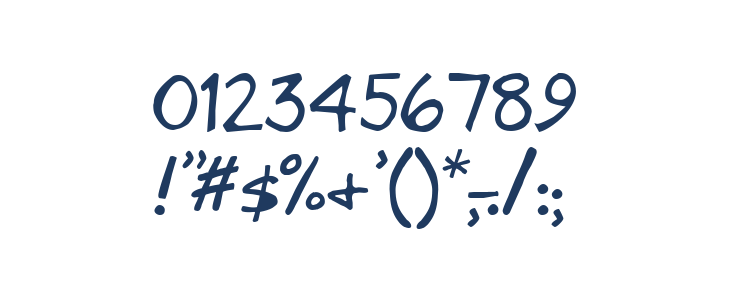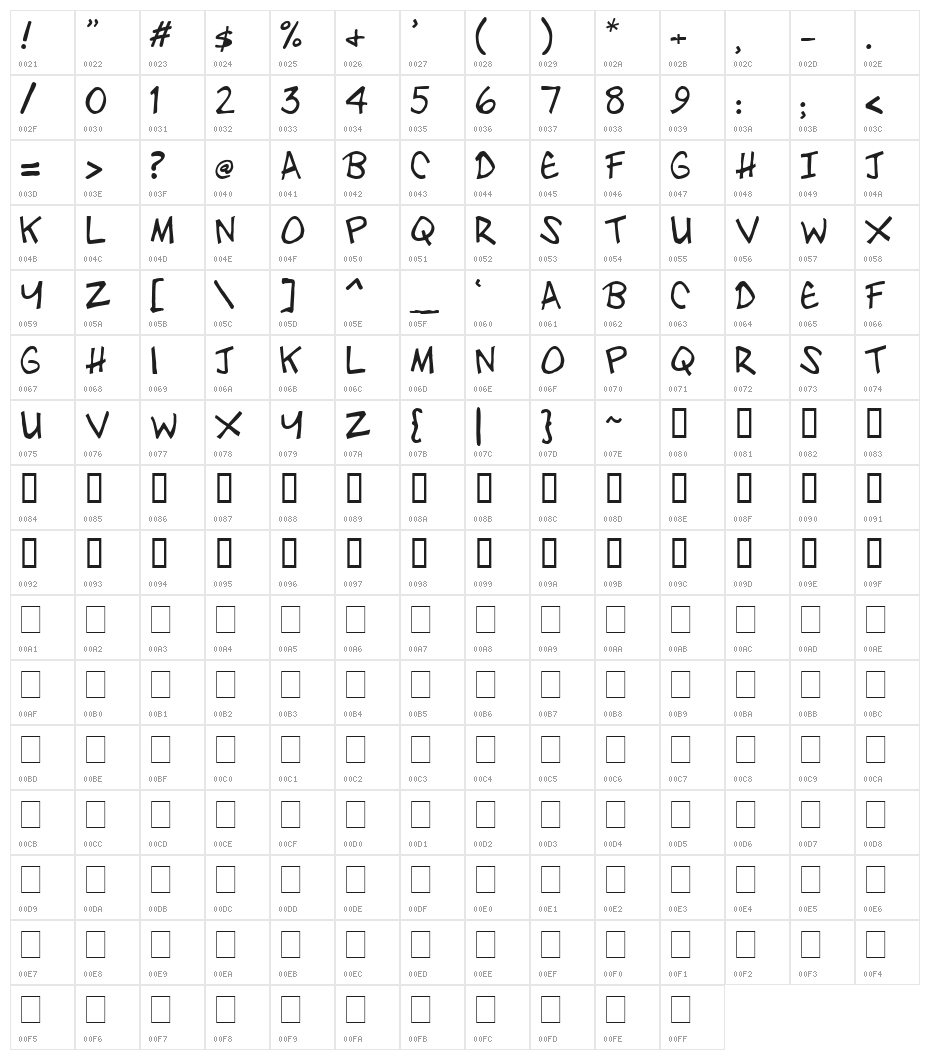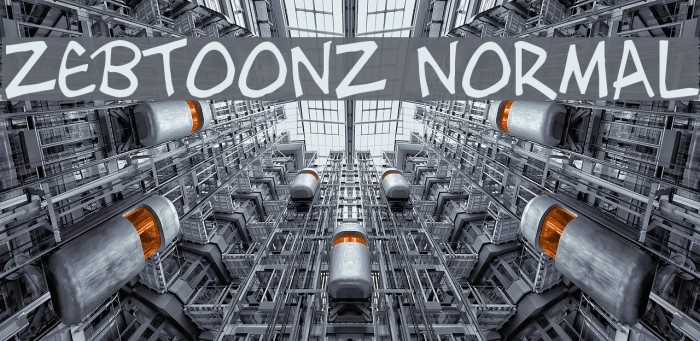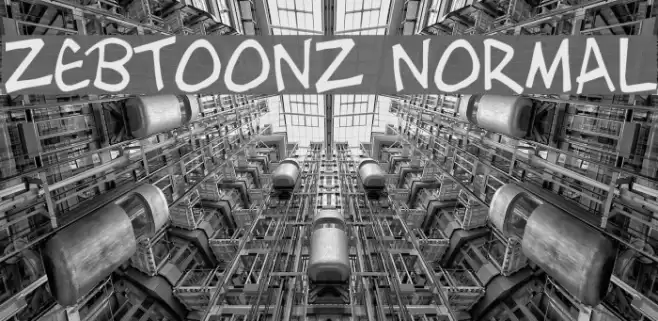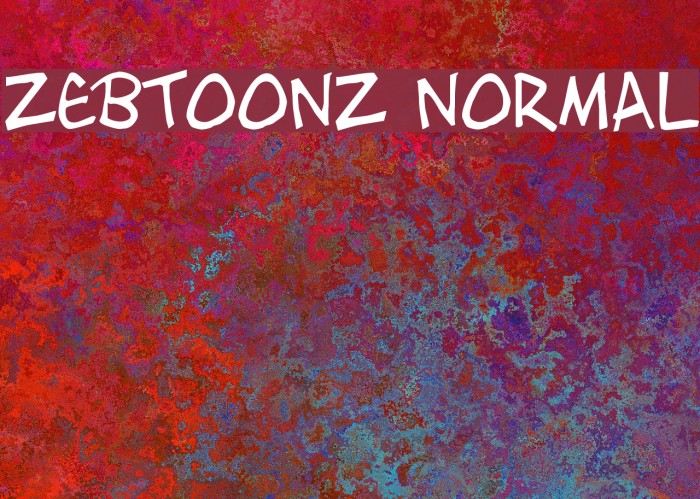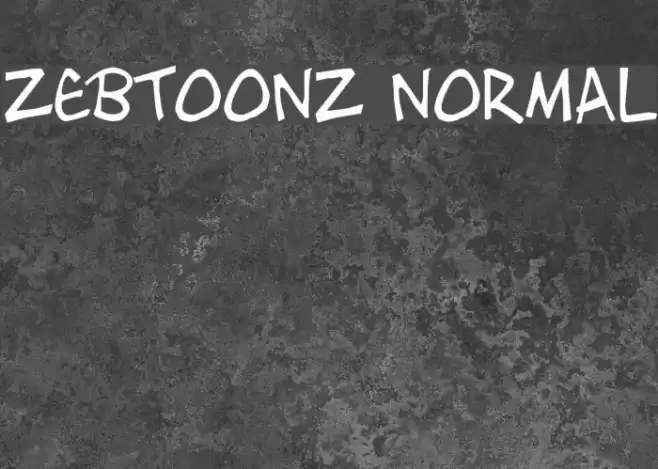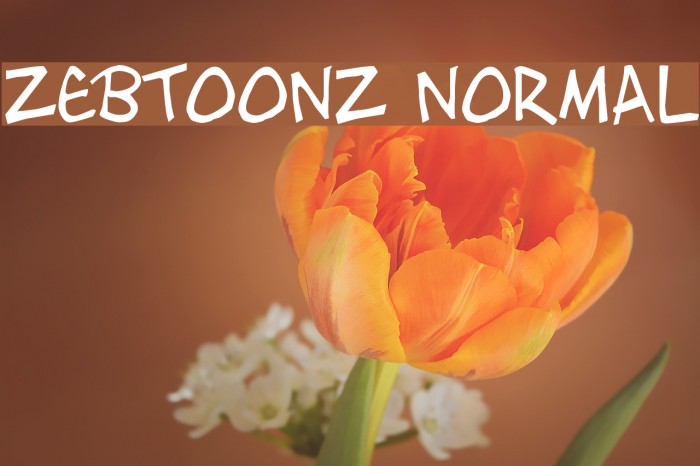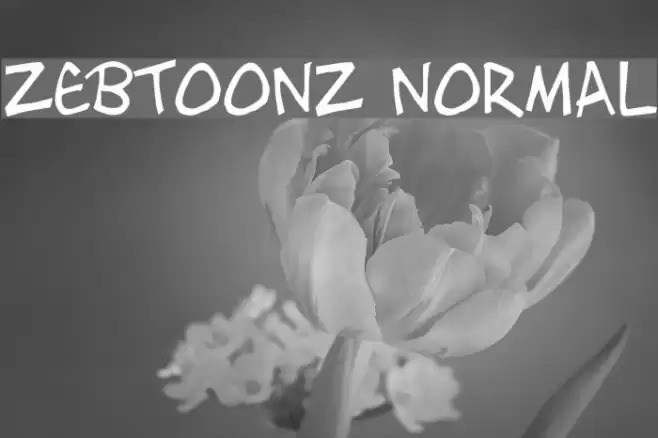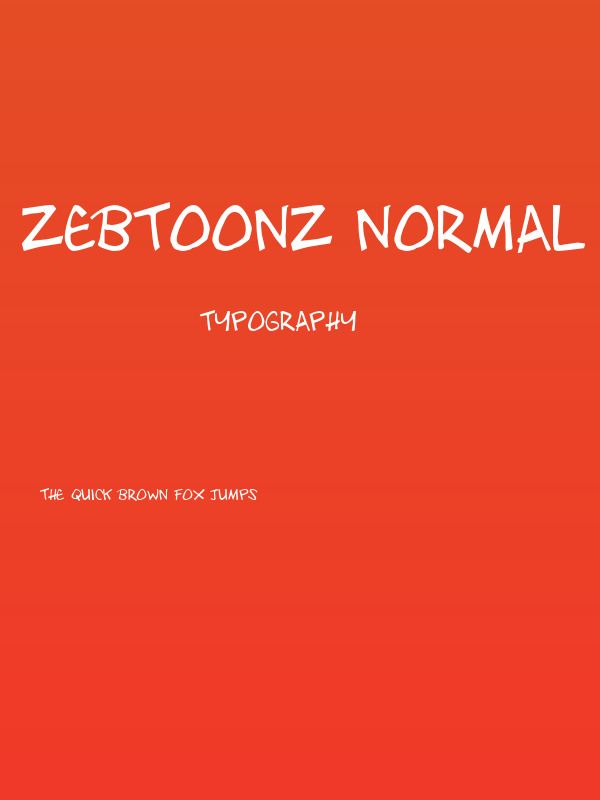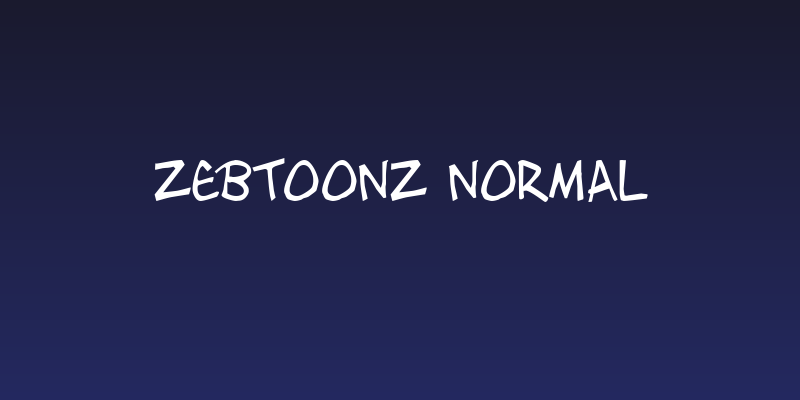
Zebtoonz Normal Font
Zebtoonz Normal Description
This playful and energetic font features a handwritten style with bold, dynamic strokes. The characters exhibit a casual, informal appearance, reminiscent of comic or cartoon lettering. The uppercase and lowercase letters maintain a consistent, lively rhythm, while the numbers and special characters complement the overall whimsical aesthetic. The font's design is characterized by its slightly irregular shapes and varying stroke widths, adding to its charm and approachability.
| Proposed Projects | Ideal for children's books, comic strips, playful branding, greeting cards, and informal posters. |